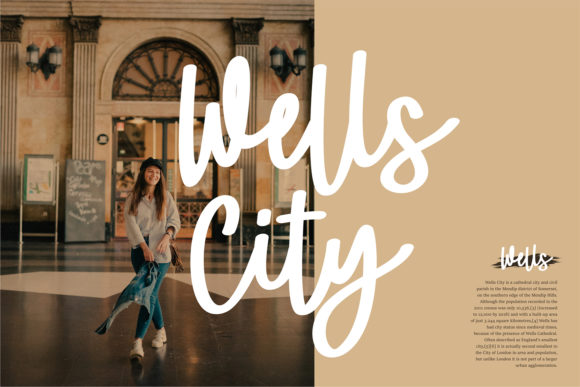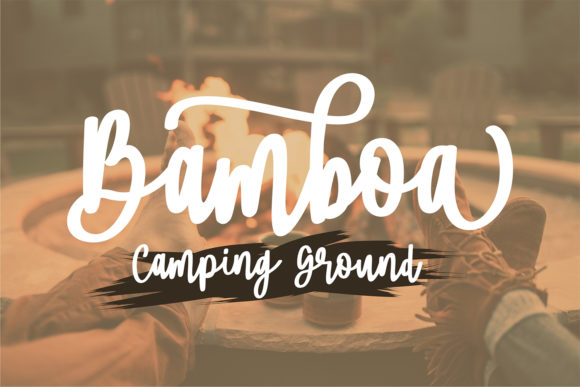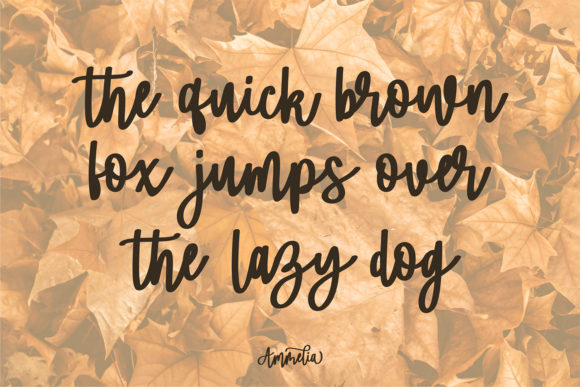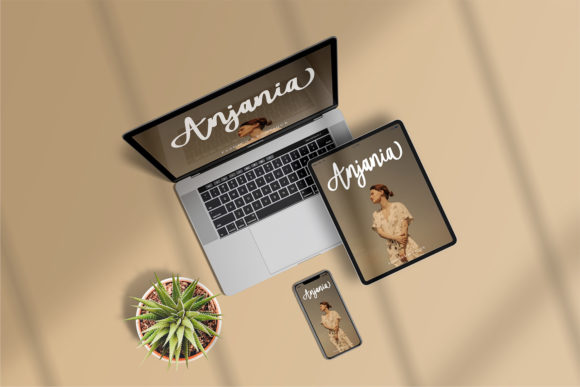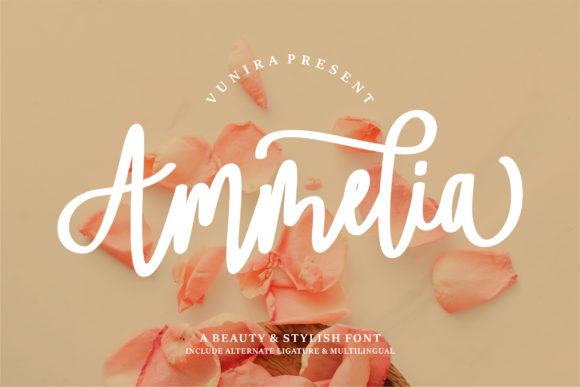
Ammelia Font: Elevate Your Designs with Elegance and Timeless Style
Are you on the hunt for a font that exudes elegance, sophistication, and a touch of timeless charm? Look no further than Ammelia, a stunning flowing handwritten font that is sure to capture your heart. With its incredibly distinct style, Ammelia is the perfect addition to your favorite projects, allowing you to create spectacular designs that stand out from the crowd.
The Essence of Ammelia Font
Ammelia is more than just a font – it’s an experience. Its elegant touch is palpable, bringing a level of refinement and poise to any design it’s a part of. Whether you’re working on a branding project, a wedding invitation, or a packaging design, Ammelia’s unique charm is sure to shine through. The font’s flowing script and delicate lines evoke a sense of luxury and sophistication, making it an excellent choice for designers and crafters looking to add a touch of high-end style to their work.
What Makes Ammelia Stand Out?
So, what sets Ammelia apart from other fonts on the market? Here are just a few of the key features that make it a standout:
- Elegant and Refined: Ammelia’s elegant touch is unmistakable, bringing a level of sophistication and poise to any design.
- Timeless Style: Unlike trendy fonts that quickly go out of style, Ammelia’s classic charm ensures it will remain a timeless choice for years to come.
- Incredibly Distinct: With its unique flowing script and delicate lines, Ammelia is instantly recognizable and sure to make your designs stand out.
- Versatile: Whether you’re working on a digital project or a print design, Ammelia is versatile enough to shine in any context.
Ammelia is a font that speaks to designers and crafters who appreciate the beauty of handwritten typography. Its unique character makes it an excellent choice for a wide range of projects, including:
- Branding and Logo Design: Use Ammelia to create a memorable and elegant brand identity that sets you apart from the competition.
- Wedding and Event Stationery: Add a touch of romance and sophistication to your wedding invitations, save-the-dates, and other event materials.
- Packaging Design: Elevate your product packaging with Ammelia’s luxurious and refined style.
- Digital and Print Media: Whether you’re working on a website, social media graphics, or print ads, Ammelia is sure to bring a level of elegance and sophistication to your designs.
Tips for Using Ammelia Font
To get the most out of Ammelia, here are a few tips to keep in mind:
- Pair with Contrasting Fonts: Combine Ammelia with a contrasting font to create visual interest and add depth to your designs.
- Experiment with Colors: Ammelia looks stunning in a range of colors, from rich jewel tones to soft pastels. Don’t be afraid to experiment and find the perfect hue for your design.
- Pay Attention to Spacing: Ammelia’s flowing script looks best with generous spacing. Make sure to adjust your text settings to ensure the font has room to breathe.
In conclusion, Ammelia font is a true gem that is sure to capture the hearts of designers and crafters alike. Its elegant touch, timeless style, and incredibly distinct character make it the perfect addition to any project. Whether you’re looking to add a touch of sophistication to your branding, create a romantic wedding invitation, or elevate your packaging design, Ammelia is the perfect choice. So why wait? Fall in love with Ammelia today and take your designs to new heights!